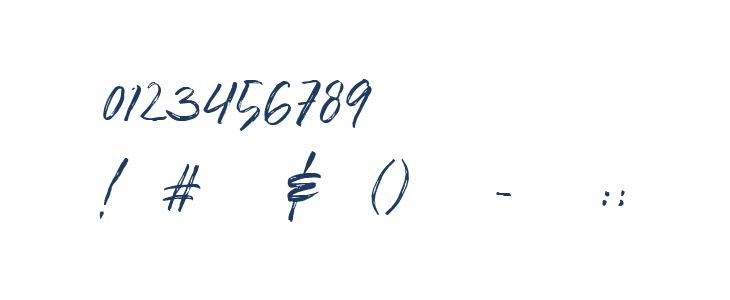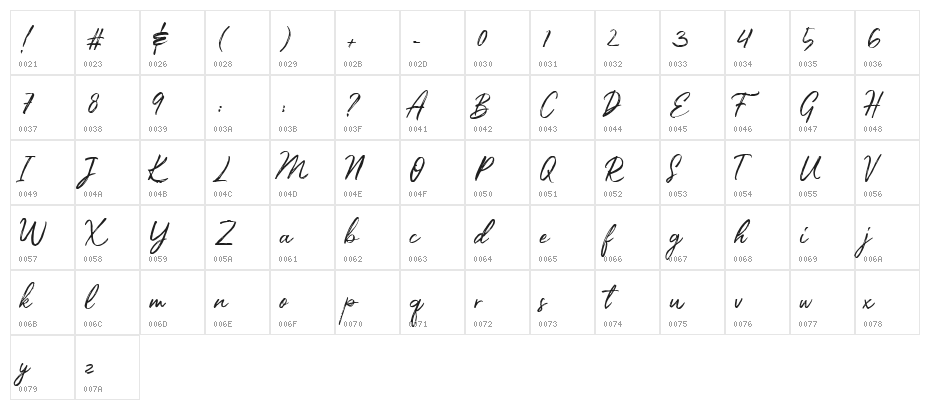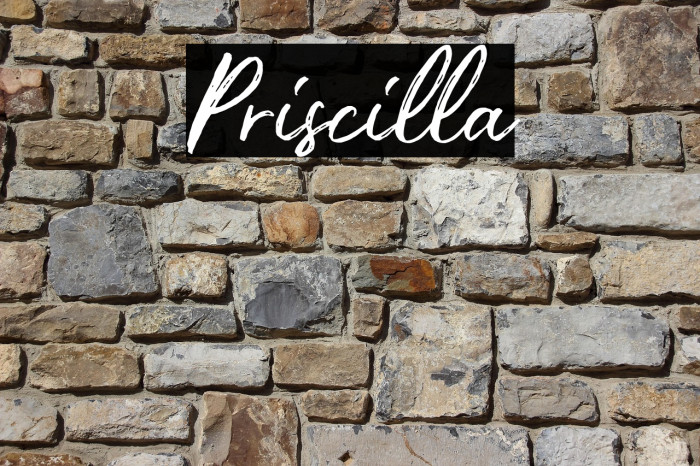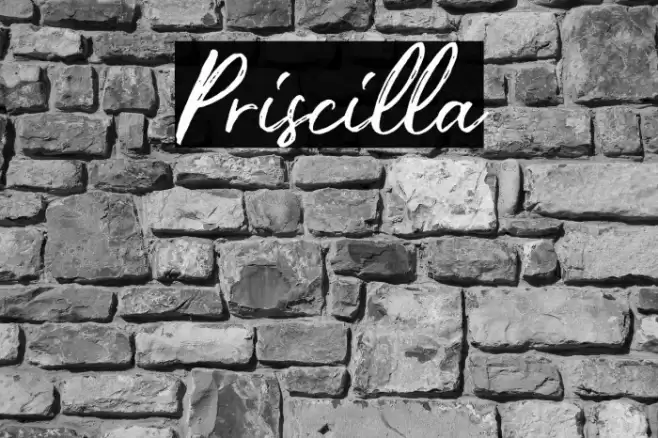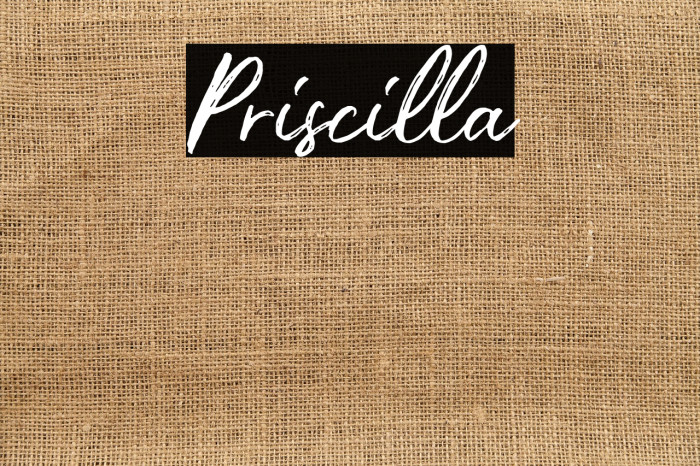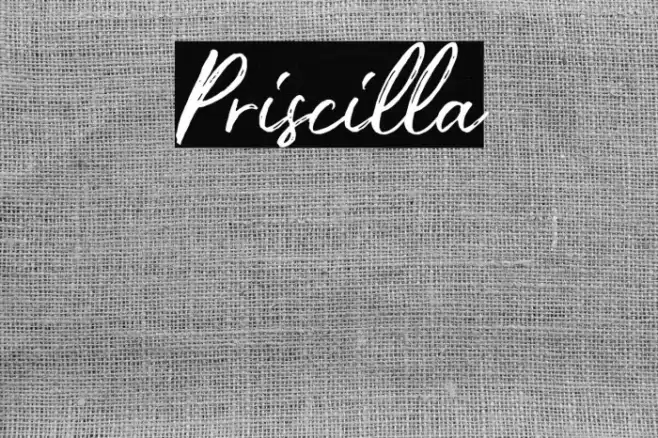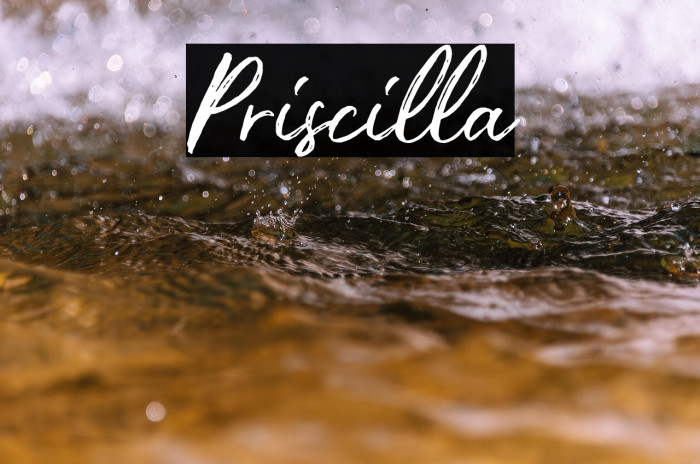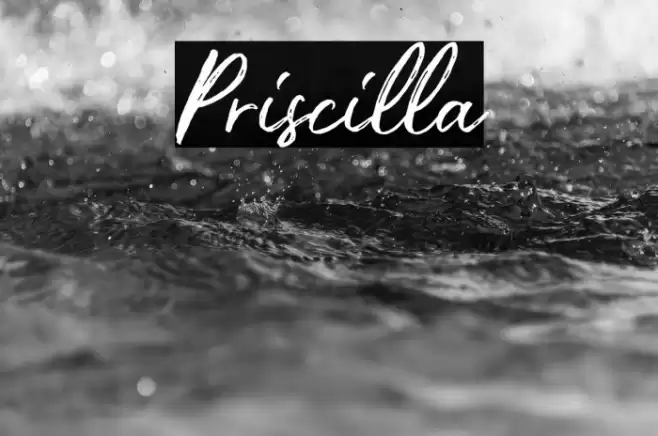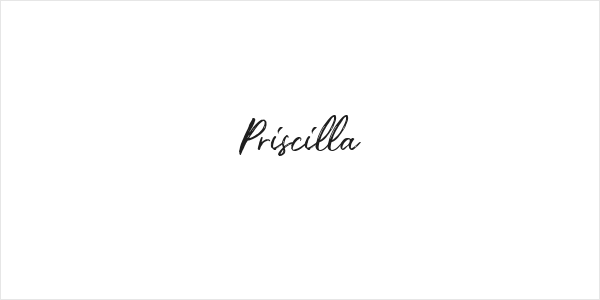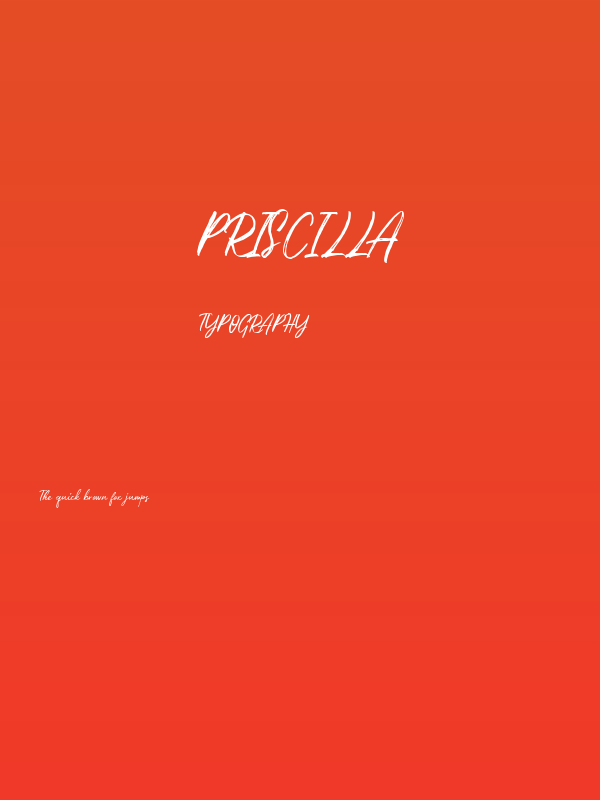
Priscilla Font
Priscilla Description
This font exudes a dynamic and expressive style, characterized by its fluid and cursive script. The letters are interconnected, creating a sense of continuity and movement. The strokes are varied in thickness, adding a lively and energetic feel. The uppercase letters are bold and prominent, while the lowercase letters maintain a consistent flow. The numerals and special characters are crafted with the same attention to detail, ensuring a cohesive look throughout. This font is ideal for projects that require a personal touch or a sense of elegance and flair.
| Proposed Projects | Ideal for wedding invitations, greeting cards, personal branding, and artistic projects. |